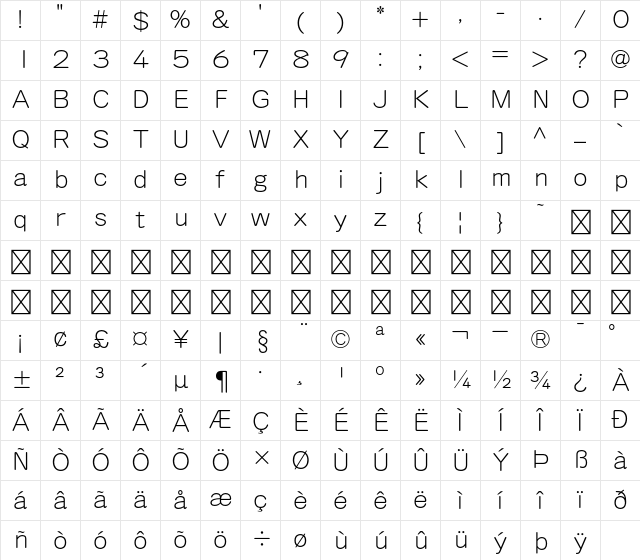
G-OTF Kyoukasho ICA Pro L
Design Context for G-OTF Kyoukasho ICA Pro
G-OTF Kyoukasho ICA Pro is a composed and adaptable typeface that performs quietly and consistently across a wide range of design contexts.